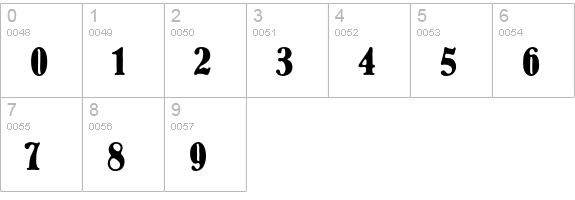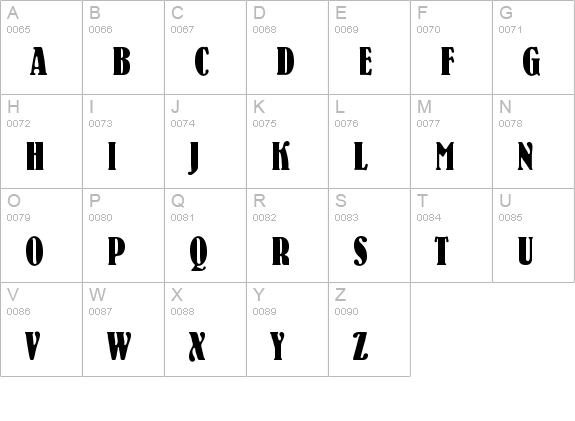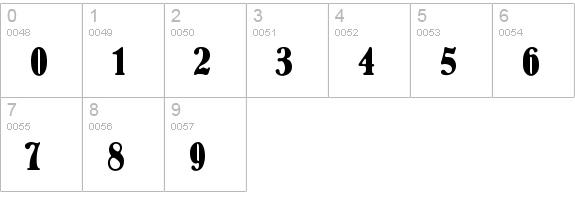
Bernhard Bold Condensed is a strong, high-contrast, condensed-width variant in the Bernhard typeface family \xE2\x80\x94 well suited to headlines, attention-grabbing titles, and strong calls-to-action.
Bernhard Bold Condensed is a striking and versatile font that exudes confidence and modernity. Its condensed design allows for maximum impact and readability, making it perfect for headlines, titles, and branding materials. The strong lines and bold strokes of Bernhard Bold Condensed make it stand out on any project, giving it a bold and impactful presence. And the best part? Bernhard Bold Condensed is available for free download at FontsMarket.com. Take advantage of this amazing offer and add a touch of boldness to your designs with Bernhard Bold Condensed.